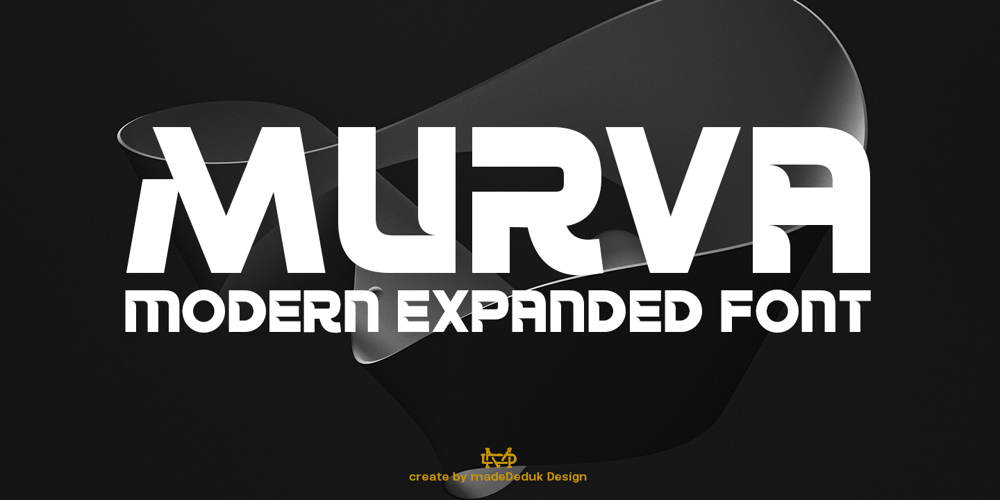
Murva Font Family was designed by madededuk and published by madeDeduk. Murva contains 1 styles and family package options. Murva is a expanded font with single weight. You can explore and combine creating rhythm for comfortable reading. It allows multiple options when designing, adapting to different composition solutions. use this font for any branding, product packaging, invitation, quotes, headline, label, poster, logo etc.Feature Uppercase & Lowercase Number & Symbol International Glyphs Multilingual support Alternative Ligature Feel free to drop us a message any time and follow my shop for upcoming updatesHope you enjoy it.